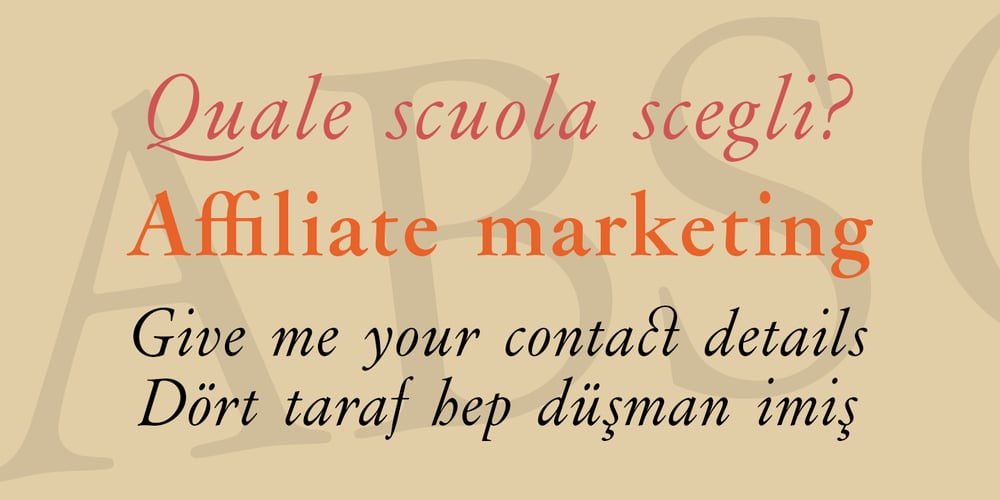
Flanker Garaldus Font Family was designed by Aldo Novarese, Leonardo Di Lena and published by Flanker. Flanker Garaldus contains 16 styles and family package options. The typeface Garaldus was presented in 1956 by Italian designer Aldo Novarese, inspired by Venetian tradition of the sixteenth century: the font name derives from Claude Garamond and Aldus Manutius. A peculiarity of this font is to change appearance, acquiring a form a more or less angular, depending on the size of the text and the way in which it is printed.